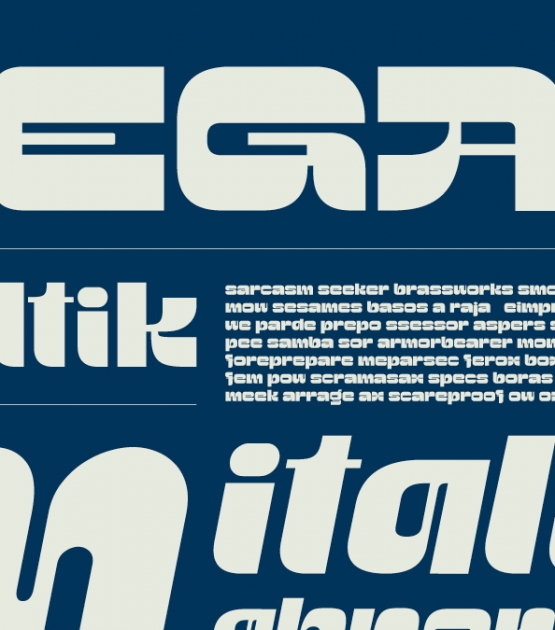
Poltik
Designed by Patrycja Walczak. Released 2025.
A two-toned family with a reverse contrast text and eye-catching headliner for a stylish, expressive presence. Both act as statement pieces, weighing heavy with aesthetic value, reliability, and an invitation to imbue type with emotion again.
Poltik
Funky, boisterous, reversed contrast sans serif family.
Patrycja Walczak’s Poltik font family wants to start the festivities. As the 2023 Gerard Unger Scholarship winner, its overall presence refuses to tuck away discreetly, but struts in with head high and arms outstretched, joyfully determined to welcome everyone to the party.
Poltik was inspired by a 1970s clock design Patrycja found in her grandfather’s drawer. From only those ten numerals, she created the bold, funky display cut of the family, and then designed complementary styles appropriate for text. Combining ideas of brutalism and individuality, Poltik display is an expressive and experimental beast of a headliner with a regular and italic style. Large formats like posters and website headers are its natural environment, and it grabs the limelight by having just enough quirks to hold attention.
Its ten text styles (five upright with matching italics) are a reversed contrast sans serif for many uses, and as such, all Poltik’s sediment has settled in the northern and southern hemispheres of each glyph. It exhibits its style as a readable and reliable sans that is wholesome and smiling, and shows more of its innate character the bolder it gets. Two variable fonts allow for almost infinite styles for complete control in a smaller data package.
Poltik has systematised cheekiness and funk to be as strong in functional ability as it is in aesthetics. For instance, the counters within the ‘e, a’ interact with each other and the ‘K, R’ retain their swooped leg throughout the family, allowing them to sway next to their other cheerful partners. Poltik’s mesmerising nature is ideal for concept store signage, a coffee shop, restaurant, or retro furniture store. It has as much potential for packaging, book covers, and magazines as it does for album covers, posters, and branding. And it harnesses all these powers in the digital world as much as in the physical one.
Poltik acts like a statement piece of furniture by adding something both intimate and immense to our recollection of 1960s and ’70s style. It takes inspiration from the well-established ethos of the past and expresses it as an interpretation clothed in a funky and consistent new form, welcoming all types to the party.